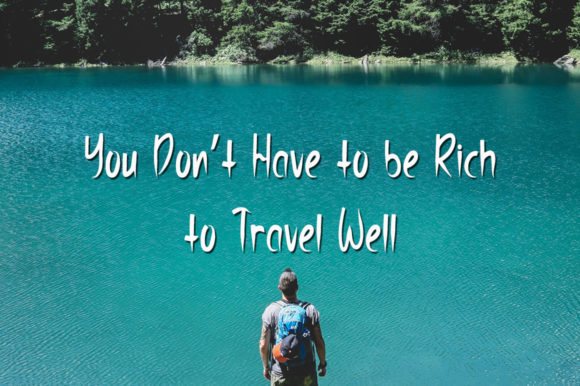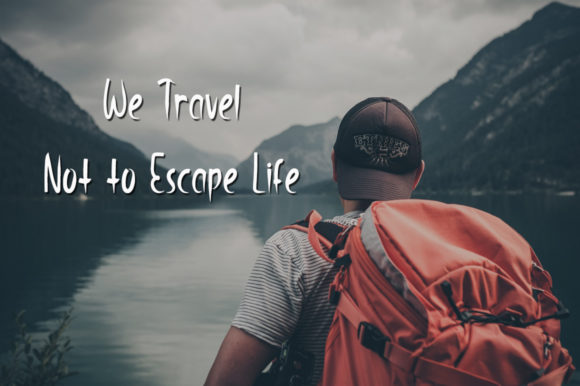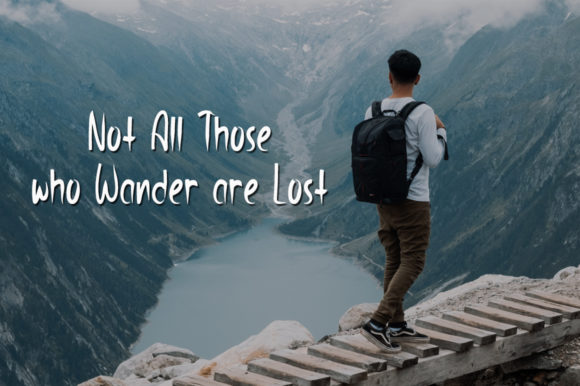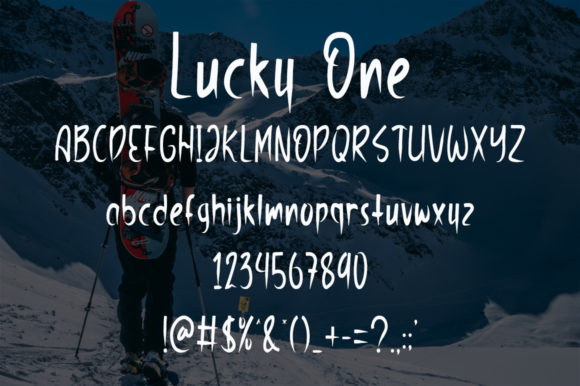
Introduction to Lucky One Font
Have you ever stared at a blank canvas, feeling stuck and unsure where to begin? You’ve got a creative project in mind, but the words just won’t flow. That’s when the right font can be the spark you need to ignite your imagination. For designers, finding the perfect font can be a game-changer, elevating your design from ordinary to extraordinary.
Enter the Lucky One Font, a sweet and friendly handwritten font that’s about to become your new go-to design resource. With its natural and unique style, this high-quality font is incredibly versatile, making it perfect for a wide range of creative projects. And the best part? You can download it for free, with a transparent background that allows for seamless integration into your design.
Whether you’re working on a personal project or a professional design, the Lucky One Font is sure to bring a touch of magic to your work. So why settle for ordinary when you can have extraordinary? Let’s dive in and explore the world of Lucky One Font, and discover why it’s a must-have in every designer’s toolkit.
Key Features of Lucky One Font
- This font features a transparent background, making it ideal for creative projects that require a clean and minimalist look.
- The font includes 5 styles: Light, Regular, Bold, Italic, and Bold Italic, providing ample options for designers to choose from.
- Lucky One Font is designed to be highly legible, with a clear and crisp resolution of 300 DPI, making it suitable for print and digital applications.
- The font size ranges from 10 to 72 points, allowing designers to easily adjust the font size to suit their creative project needs.
- Lucky One Font is a versatile design resource that can be used for a variety of creative projects, from logos and branding to typography and graphics.
Honest Review: Lucky One Font
I recently came across the Lucky One Font, and I’m excited to share my thoughts on this design resource. As a designer, I’m always on the lookout for high-quality fonts that can elevate my creative projects. The Lucky One Font is definitely worth considering, especially since it’s available for a free download.
What works well with the Lucky One Font is its versatility. It comes in various weights and styles, making it suitable for a wide range of design projects. The font’s clean and modern design also makes it easy to read and use. Additionally, the transparent background option provides more flexibility when working with different design elements. ✨
- Design flexibility – The font’s versatility and clean design make it easy to use in various creative projects.
- Transparent background – This feature allows for more flexibility when working with different design elements.
However, there are some limitations to consider. ⚠️ The font may not be suitable for projects that require a more formal or traditional look. Additionally, the font’s limited character set may be a drawback for designers who need to work with non-English text.
Overall, I’m impressed with the Lucky One Font. Its high-quality design and free download make it a great addition to any designer’s toolkit. With its transparent background and versatile design, it’s definitely worth considering for your next creative project.